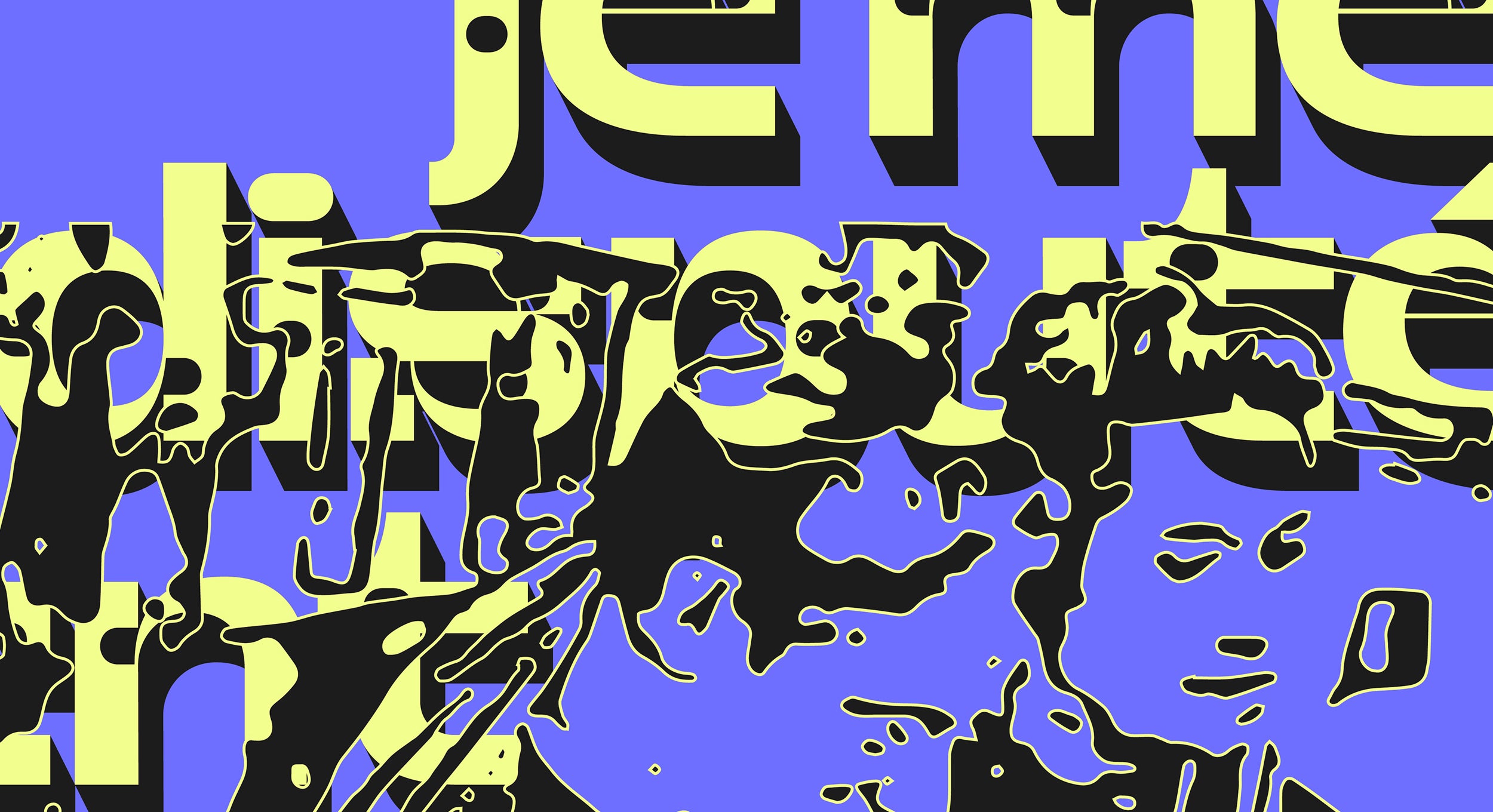
Missouri embodies the silver screen and all the passions behind it, embracing the cinematic experience and its seasoned legacies.
Missouri
- 8mm 500
- 16mm 600
- 35mm 700
- 70mm 800
Wachowsky’s Matrix jeopardized Earth defining a viable quest for Chat GPT
Shaped as a lasting dedication to cinema, with its name taken from its designer’s local cinema, Missouri embodies the silver screen and all the passions behind it, embracing the cinematic experience and its seasoned legacies.
Cinemascope in its design, Missouri translates the wide angles of watching a movie into the chunky, broad proportions of its bold grotesque structure – punctured with aperture-inspired ink-traps throughout, akin to the sprockets of a film reel. With that in mind, Missouri is made to be projected as big as possible, proud of its towering proportions and characterful contrasts. A true movie star in the making.